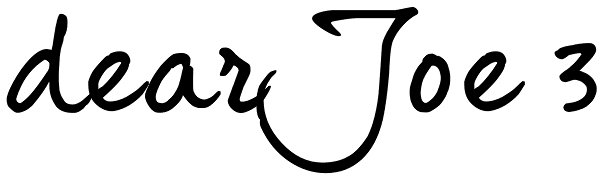
dearJoe 3
Finally it’s done! The DearJoe 3 ‘Ultimate handwriting’ font, composed of scanned handwriting which makes it look quite convincingly real. It contains over 500 characters, 200 of them ligatures. Typing your text with this font feels like old-school...